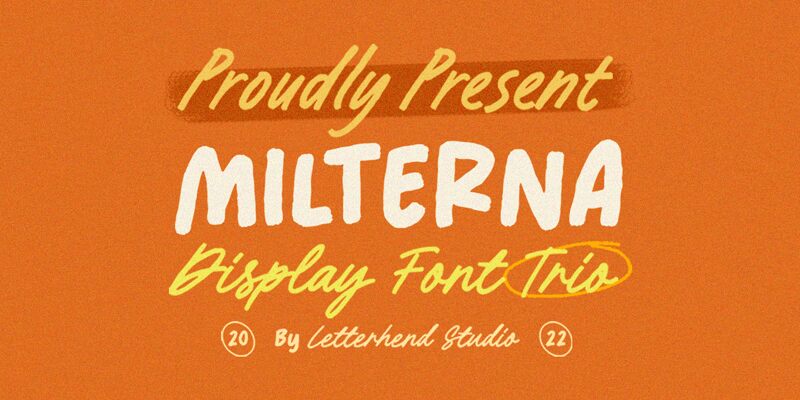
Milterna, a creation of Letterhend Studio, is a font that exudes a personal touch with its handwritten style. Its flowing letters and casual elegance make it feel like an intimate note from a friend. With charming irregularities and a dynamic baseline, Milterna brings warmth and approachability to any project.
Its aesthetic appeal lies in the organic quality that suggests authenticity and craftsmanship. Perfect for designs that require a human touch, Milterna can effortlessly transform invitations, branding materials, and packaging with its personable character. This font's inviting appearance also makes it ideal for editorial work where engagement is key. In essence, Milterna offers designers the ability to add sincerity and individuality to their visual narratives.